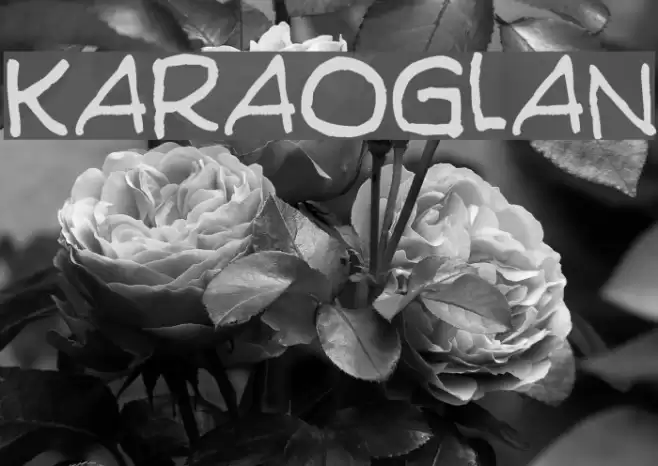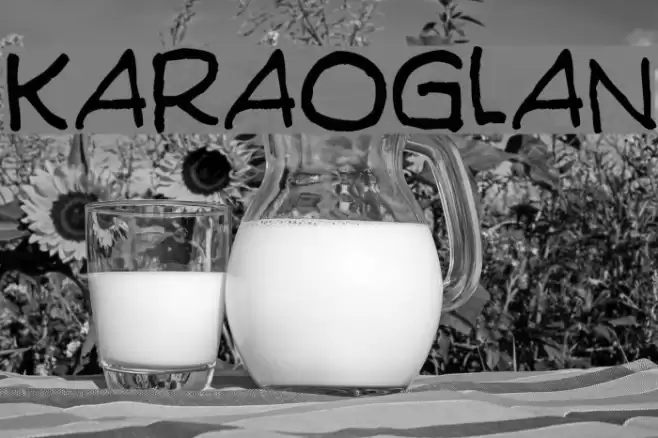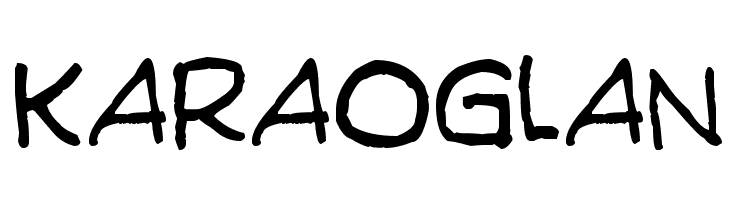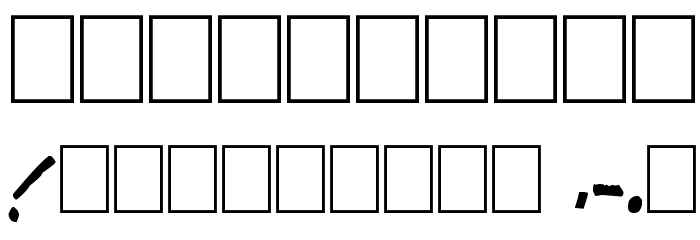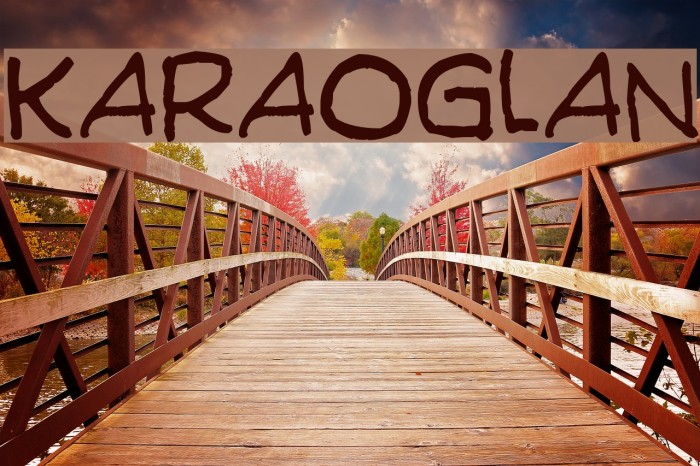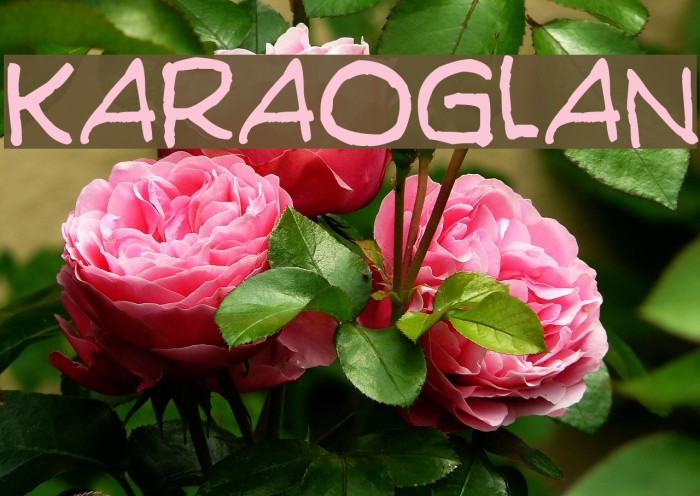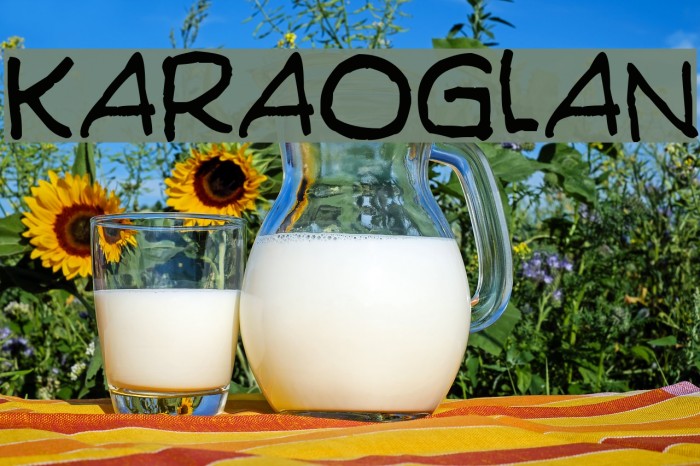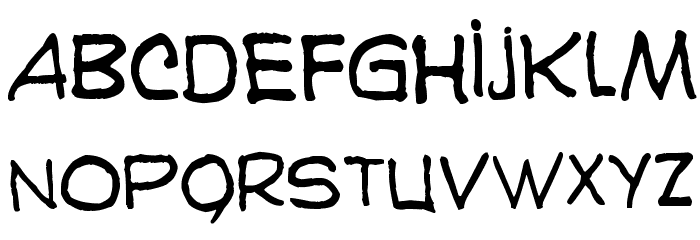
Karaoglan Font
Karaoglan Description
This font features a bold, hand-drawn style with a rugged and organic appearance. The letters have uneven edges and a slightly irregular baseline, giving them a dynamic and energetic feel. The uppercase and lowercase letters are distinct, with a playful yet assertive presence. The strokes are thick and vary in width, adding to the font's informal and artistic character. This style is reminiscent of graffiti or brush lettering, making it ideal for projects that require a creative and unconventional touch.
A bold, hand-drawn font with a rugged, artistic style from Comic fonts.
- Proposed Projects: Ideal for posters, album covers, artistic projects, and branding that seeks a creative and informal look.